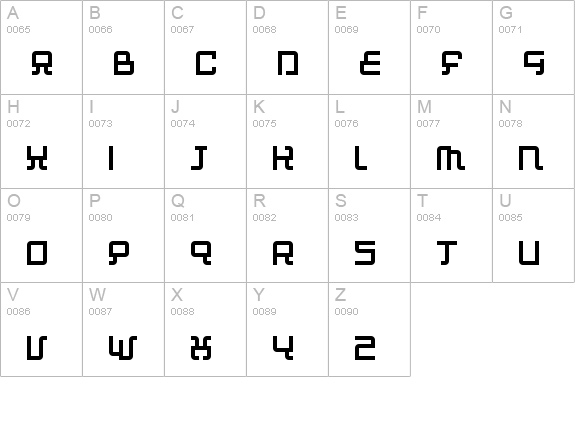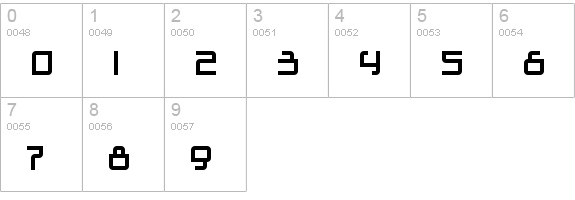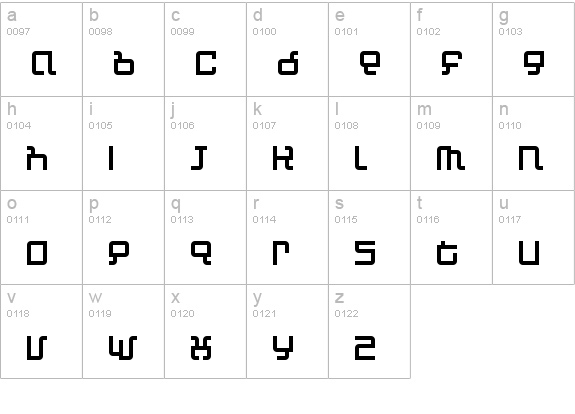
Automind Font Details
Introducing Automind font, a modern and sleek typeface designed to elevate your design projects to the next level. With its clean lines and contemporary style, Automind is perfect for branding, advertising, packaging, and more. This versatile font exudes a sense of sophistication and professionalism, making it ideal for a wide range of applications. What sets Automind apart is not only its aesthetic appeal but also its functionality. The font features a full set of characters, including uppercase and lowercase letters, numbers, and punctuation marks, ensuring that you have everything you need to create stunning designs. Whether you're working on a logo, website, or print materials, Automind has got you covered. And the best part? Automind is completely free to download at FontsMarket.com. That's right, you can access this premium font at no cost, giving you the opportunity to enhance your projects without breaking the bank. Don't miss out on the chance to elevate your designs with Automind font - download it today and see the difference it can make!